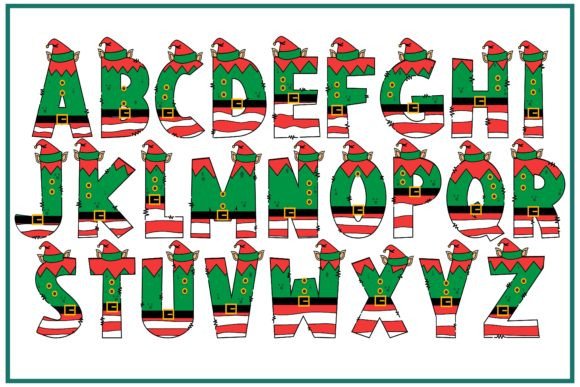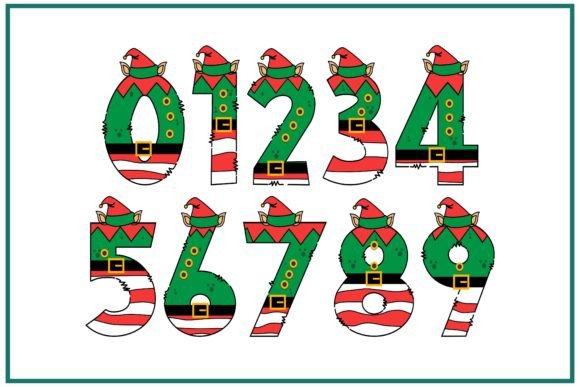
Introducing Elf Font: Add a Dash of Holiday Cheer to Your Designs
Are you searching for a font that embodies the spirit of Christmas? Look no further than Elf Font! This unique color font is sure to bring a smile to your face with its playful and festive design. Featuring uppercase letters adorned with an adorable elf hat, Elf Font is the perfect addition to your holiday projects.
A Font that’s a Little Bit Naughty and a Little Bit Nice
Elf Font is designed to capture the whimsical essence of the holiday season. The font’s uppercase letters are carefully crafted with an added elf hat, giving your designs a touch of personality and fun. Whether you’re creating festive invitations, holiday cards, or sprucing up your website for Christmas, Elf Font is sure to add a dash of holiday cheer to your projects.
Tips and Tricks for Using Elf Font
To get the most out of Elf Font, here are a few tips and tricks to keep in mind:
- Experiment with different colors and textures to give your designs a unique look.
- Use Elf Font to create eye-catching headings and titles for your holiday projects.
- Pair Elf Font with other festive fonts to create a cohesive and visually appealing design.
- Don’t be afraid to get creative and add your own personal touch to your designs!
The Benefits of Using a Color Font
Elf Font is a color font, which means it offers a range of benefits, including:
- Increased design flexibility: With a color font, you can easily change the color of your text to match your brand or design aesthetic.
- Unique and eye-catching designs: Color fonts allow you to create designs that stand out from the crowd and grab attention.
- Easy to use: Color fonts are incredibly easy to use and require no additional design expertise.
Elf Font is a unique and festive color font that’s sure to add a dash of holiday cheer to your designs. With its playful and whimsical design, Elf Font is perfect for a range of holiday projects, from festive invitations to holiday cards and more. So why wait? Download Elf Font today and start creating your own magical holiday designs!